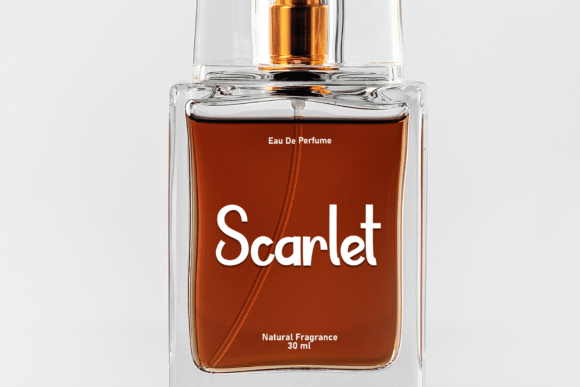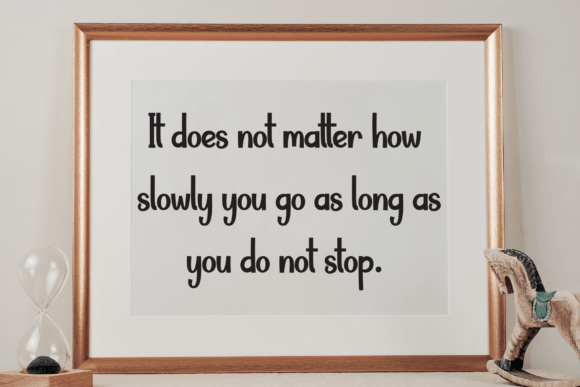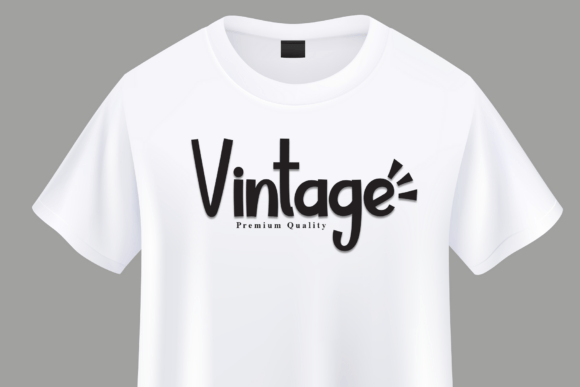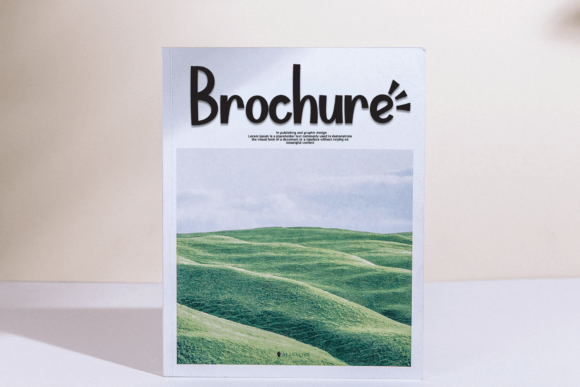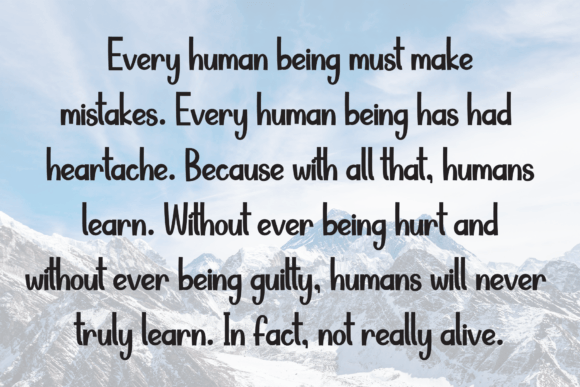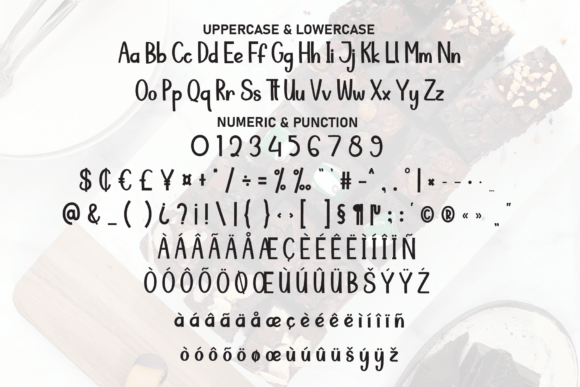
Hello Brownies Font: Adding a Delightful Touch to Your Designs
Are you looking for a font that can add a sprinkle of charm to your designs? Look no further than Hello Brownies Font, a charming, hand-scripted typeface that is brimming with warmth and friendliness. This charismatic font is perfect for designers and crafters who want to add a personal touch to their projects, making them stand out from the crowd.
The Characteristics of Hello Brownies Font
Hello Brownies Font is a handwritten font that exudes a playful allure, making it the optimal choice for crafting personalized wedding invites, engaging greeting cards, or any design project seeking that extra special something. The font’s hand-scripted nature gives it a unique and organic feel, perfect for adding a touch of whimsy to your designs.
With its warm and friendly aesthetic, Hello Brownies Font is ideal for designers who want to create a connection with their audience. The font’s charm lies in its imperfections, which give it a distinctly human feel. Whether you’re creating a wedding invitation, a greeting card, or a social media graphic, Hello Brownies Font is sure to delight.
Uses for Hello Brownies Font
Hello Brownies Font is a versatile typeface that can be used in a variety of design projects. Here are some ideas to get you started:
- Wedding Invitations: Add a touch of romance and whimsy to your wedding invitations with Hello Brownies Font. The font’s playful allure makes it perfect for crafting personalized and unique wedding invites that will set the tone for your special day.
- Greeting Cards: Create engaging and heartfelt greeting cards with Hello Brownies Font. The font’s warm and friendly aesthetic makes it ideal for birthdays, anniversaries, and get-well cards.
- Social Media Graphics: Add a sprinkle of charm to your social media graphics with Hello Brownies Font. The font’s hand-scripted nature makes it perfect for creating eye-catching and engaging graphics that will help your brand stand out.
- Branding and Packaging: Use Hello Brownies Font to add a personal touch to your branding and packaging. The font’s unique and organic feel makes it perfect for creating a distinctive brand identity that will resonate with your audience.
Why Choose Hello Brownies Font?
So why choose Hello Brownies Font over other typefaces? Here are just a few reasons:
- Unique and Handwritten: Hello Brownies Font is a unique and handwritten typeface that will add a personal touch to your designs.
- Warm and Friendly: The font’s warm and friendly aesthetic makes it perfect for creating a connection with your audience.
- Playful Allure: Hello Brownies Font has a playful allure that makes it perfect for crafting personalized and engaging designs.
- Easy to Read: Despite its handwritten nature, Hello Brownies Font is easy to read, making it perfect for body text and headings.
Tips for Using Hello Brownies Font
Here are some tips for using Hello Brownies Font in your designs:
- Use it Sparingly: Hello Brownies Font is a bold and eye-catching typeface, so use it sparingly to avoid overwhelming your design.
- Pair it with Other Fonts: Pair Hello Brownies Font with other fonts to create a unique and visually appealing combination.
- Have Fun: Most importantly, have fun with Hello Brownies Font! The font’s playful allure makes it perfect for experimenting and trying new things.
Hello Brownies Font is a charming, hand-scripted typeface that is perfect for adding a delightful touch to your designs. With its warm and friendly aesthetic, playful allure, and unique and organic feel, this font is ideal for designers and crafters who want to create a connection with their audience. Whether you’re creating a wedding invitation, a greeting card, or a social media graphic, Hello Brownies Font is sure to delight. So why not give it a try and see how it can elevate your designs?